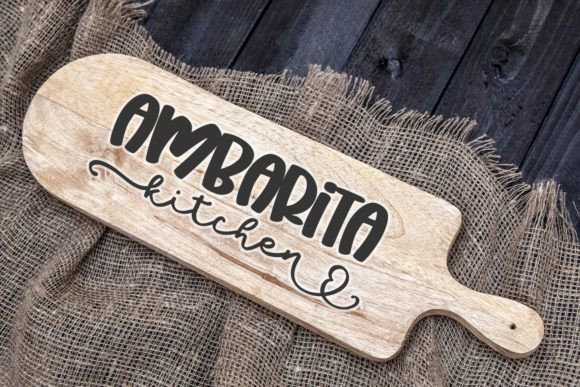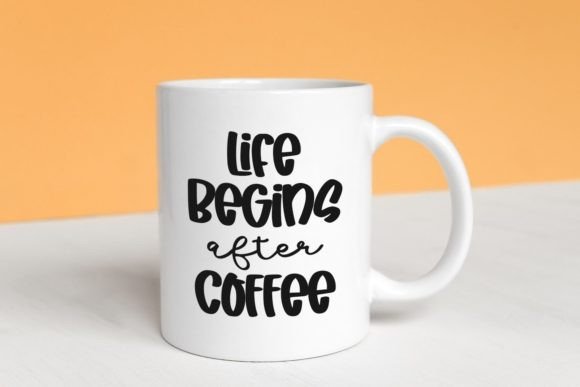
Dandelion Garden Duo Font
Dandelion Garden is a lovely and cute font duo. It embodies playfulness and authenticity and is a great font for lettering, quotes, logos, t-shirt designs, mugs, tote bag designs, cards, banners, social media, or anything that needs a fresh and friendly touch.